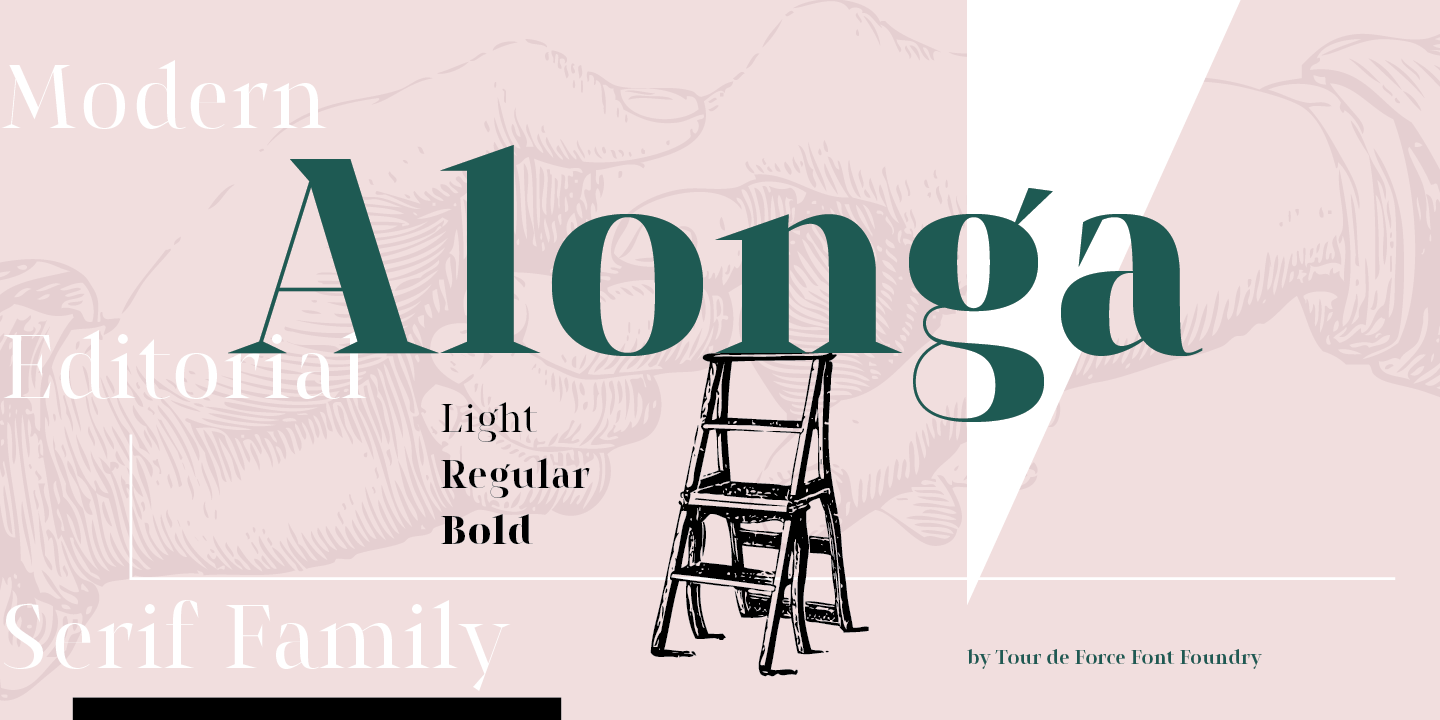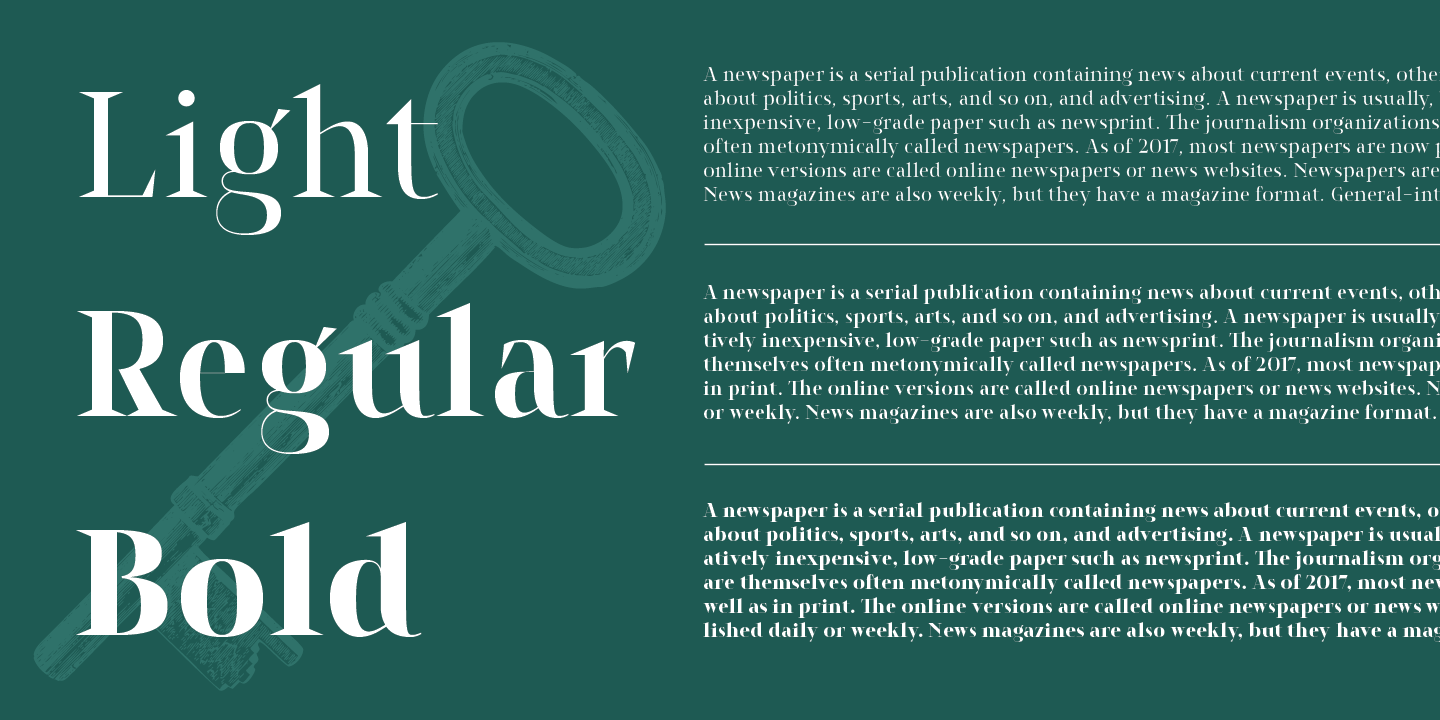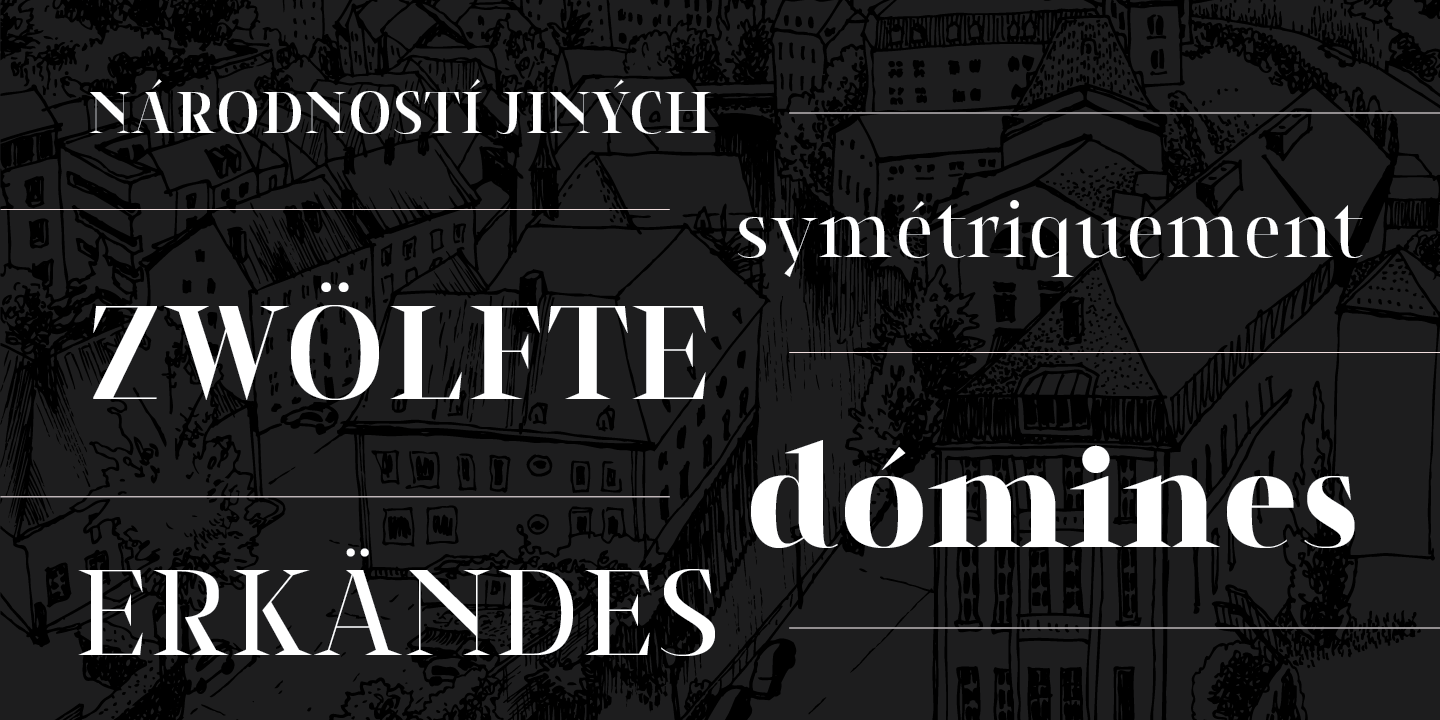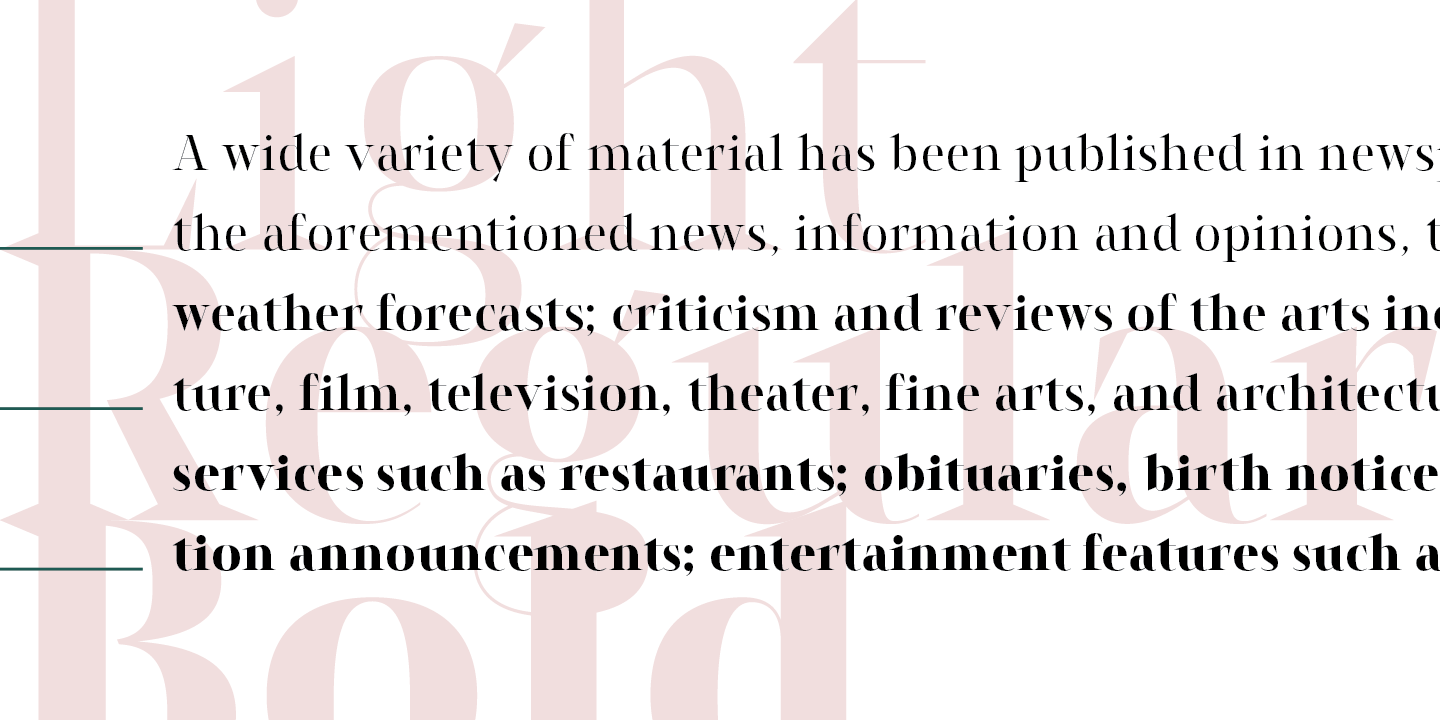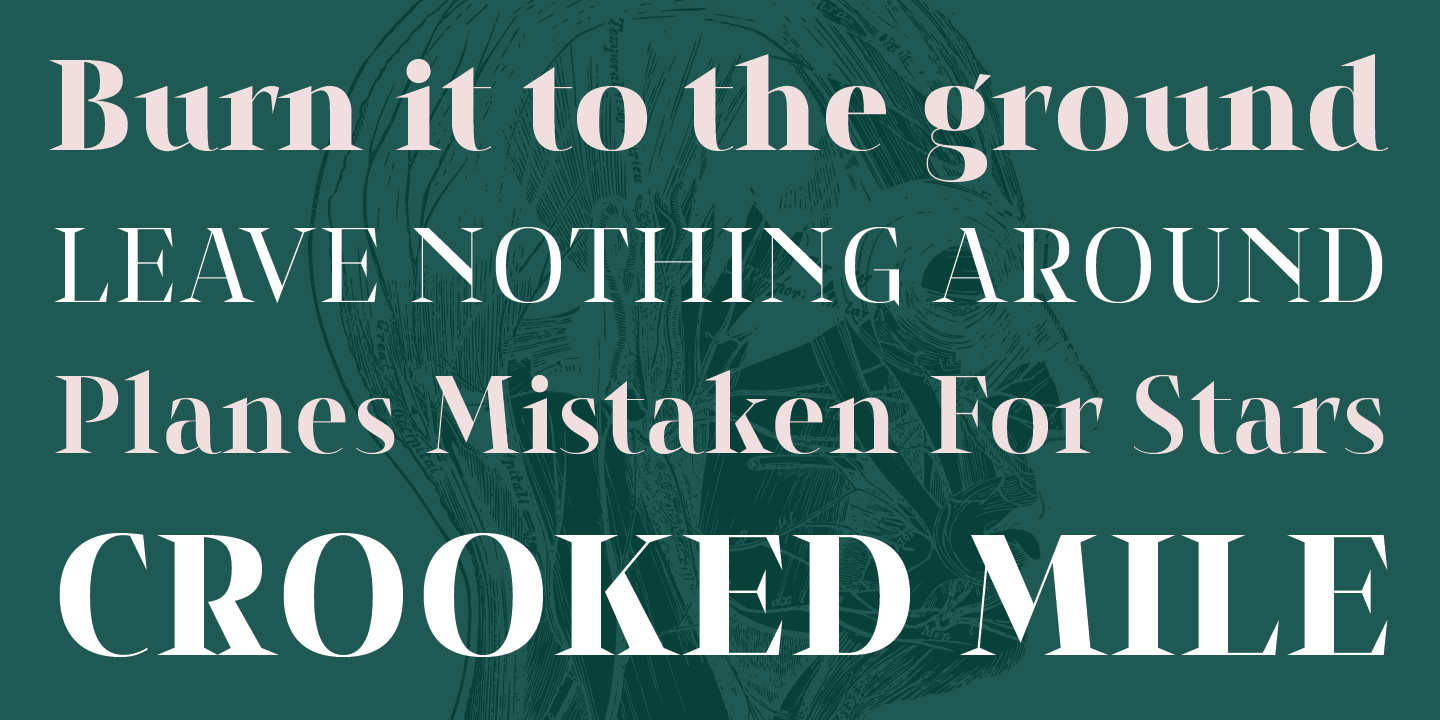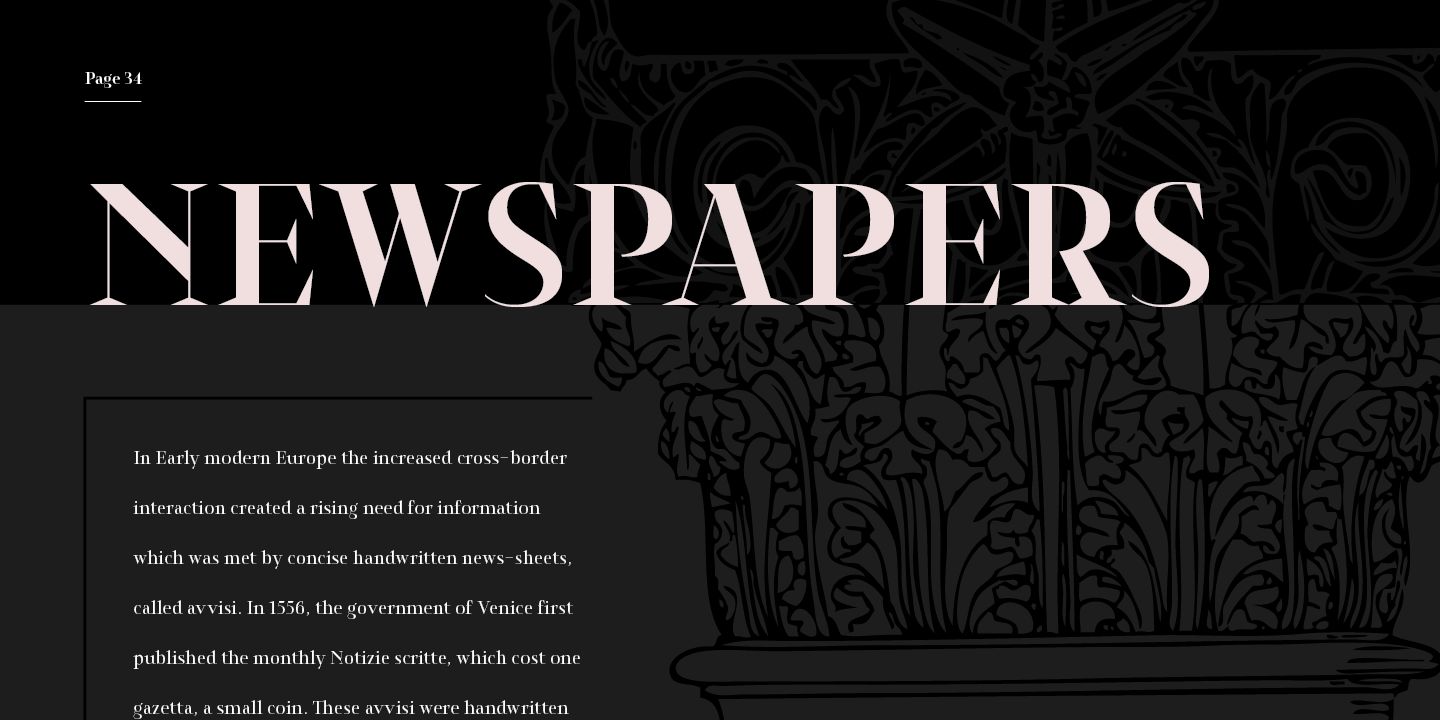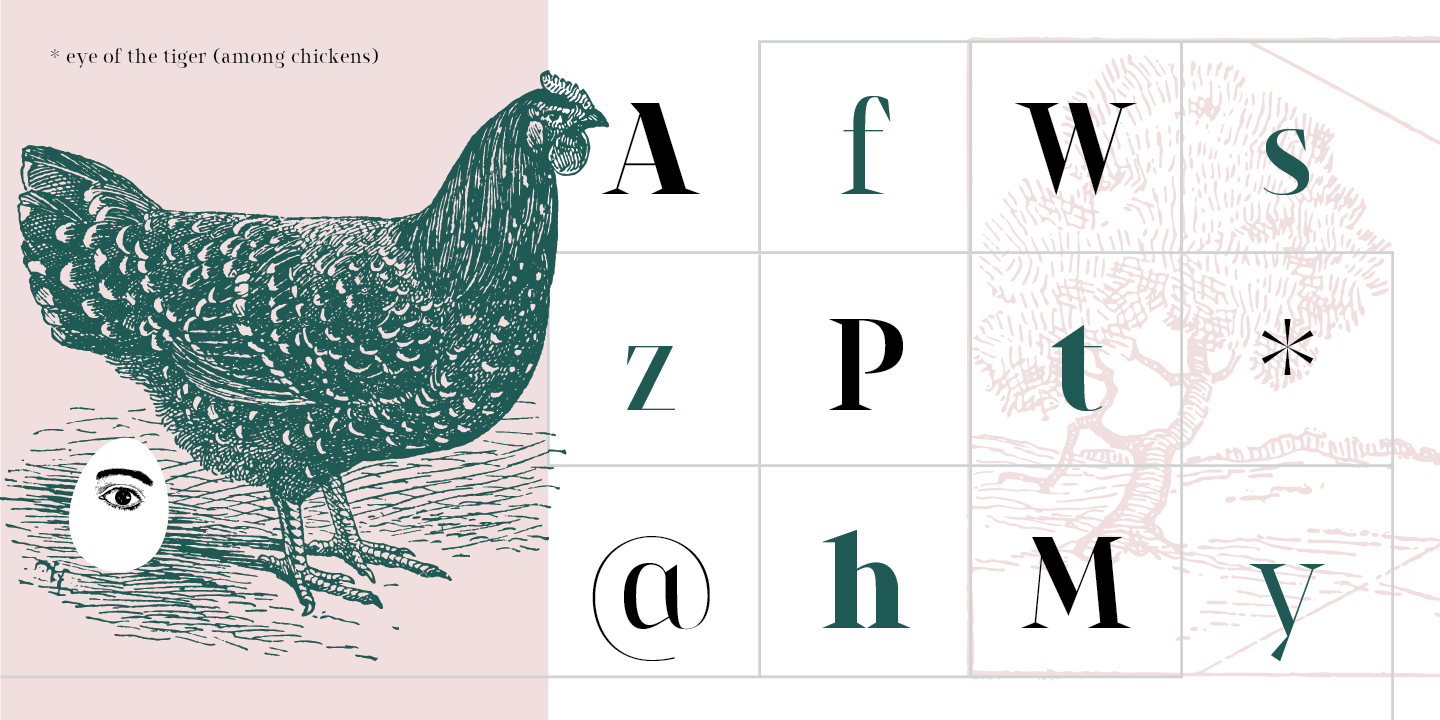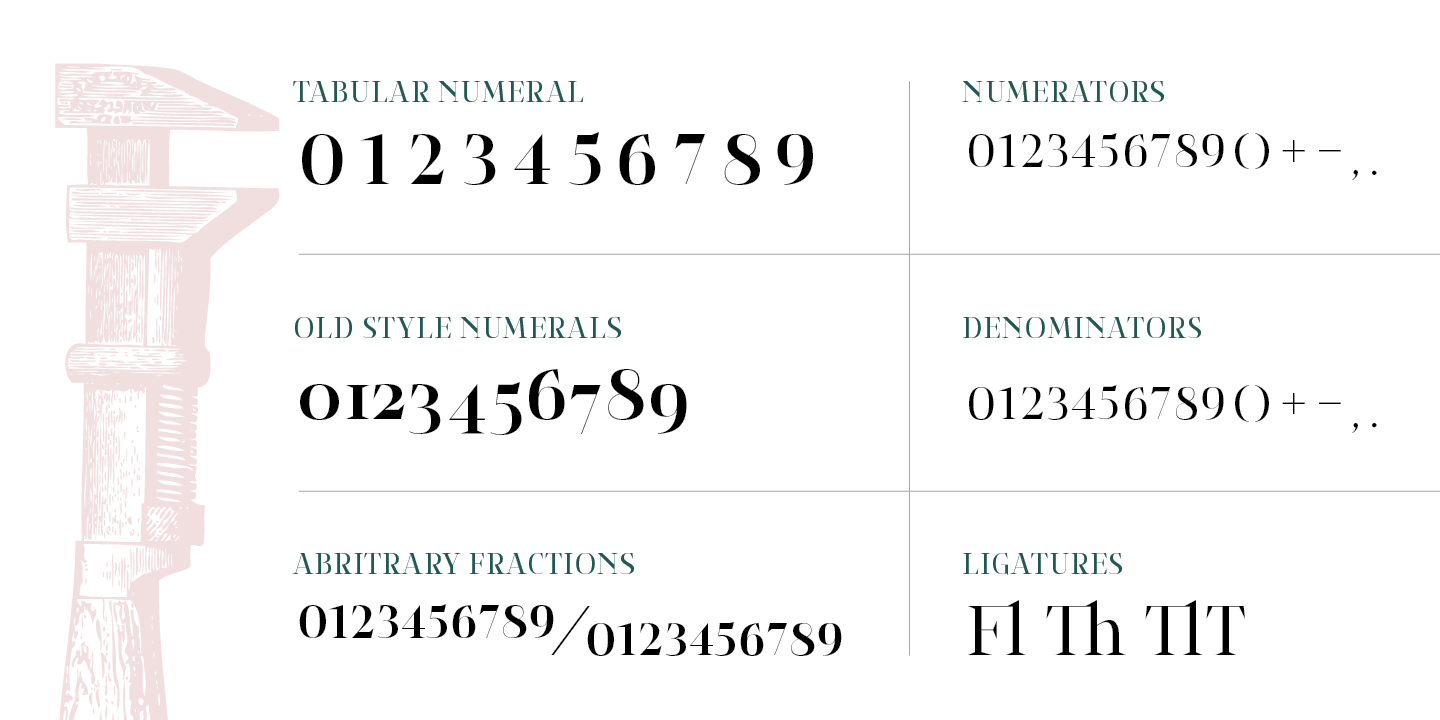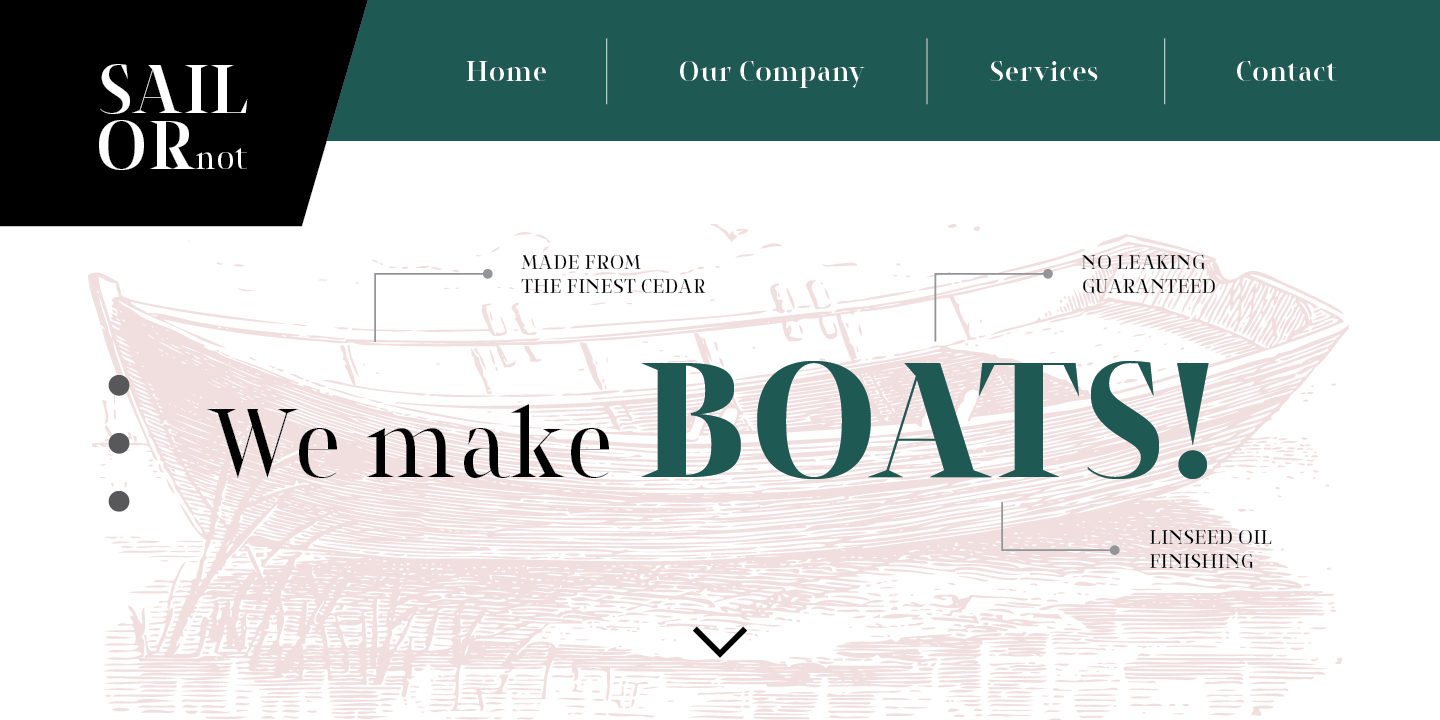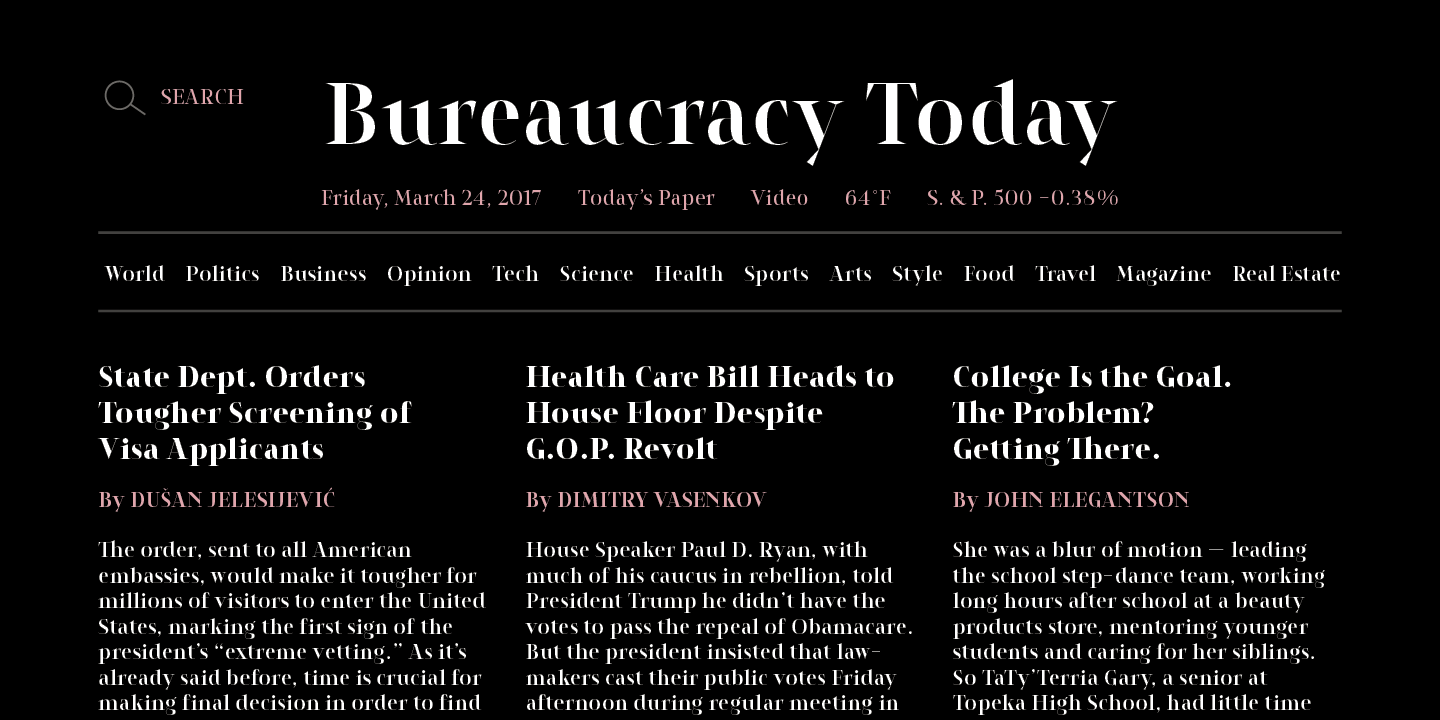
Alonga is modern serif family that comes in 3 weights: Light, Regular and Bold. Characterized with high contrasted stems and sharp triangular serifs ñ all wrapped in elegant geometric letter shapes. Contains Tabular and OldStyle Numerals, Ligatures, Numerator, Denominator and Fractions.